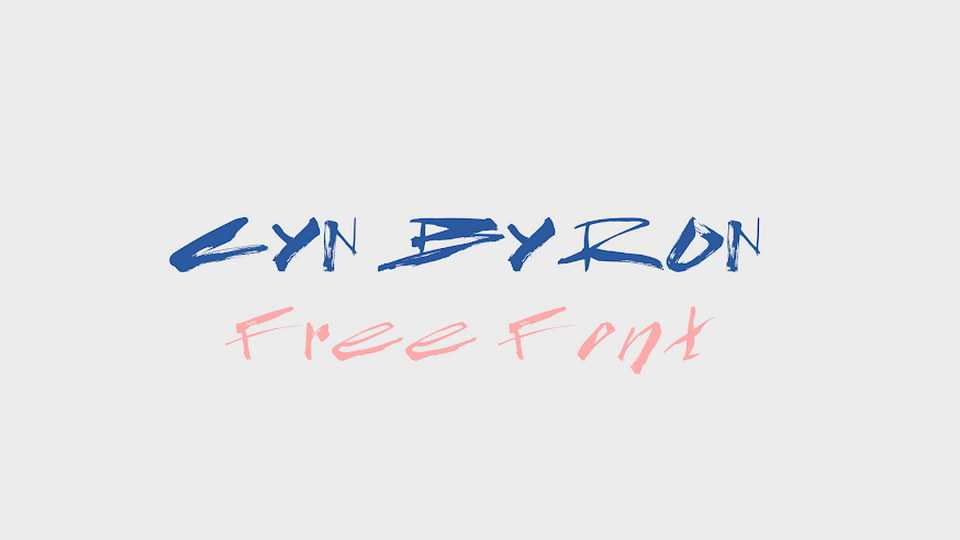
Download CYN Byron font, an extremely annoying and funny handcrafted type of calligraphy similar to American Punk music style of late 70’s.
Designer: Petros Vasiadis